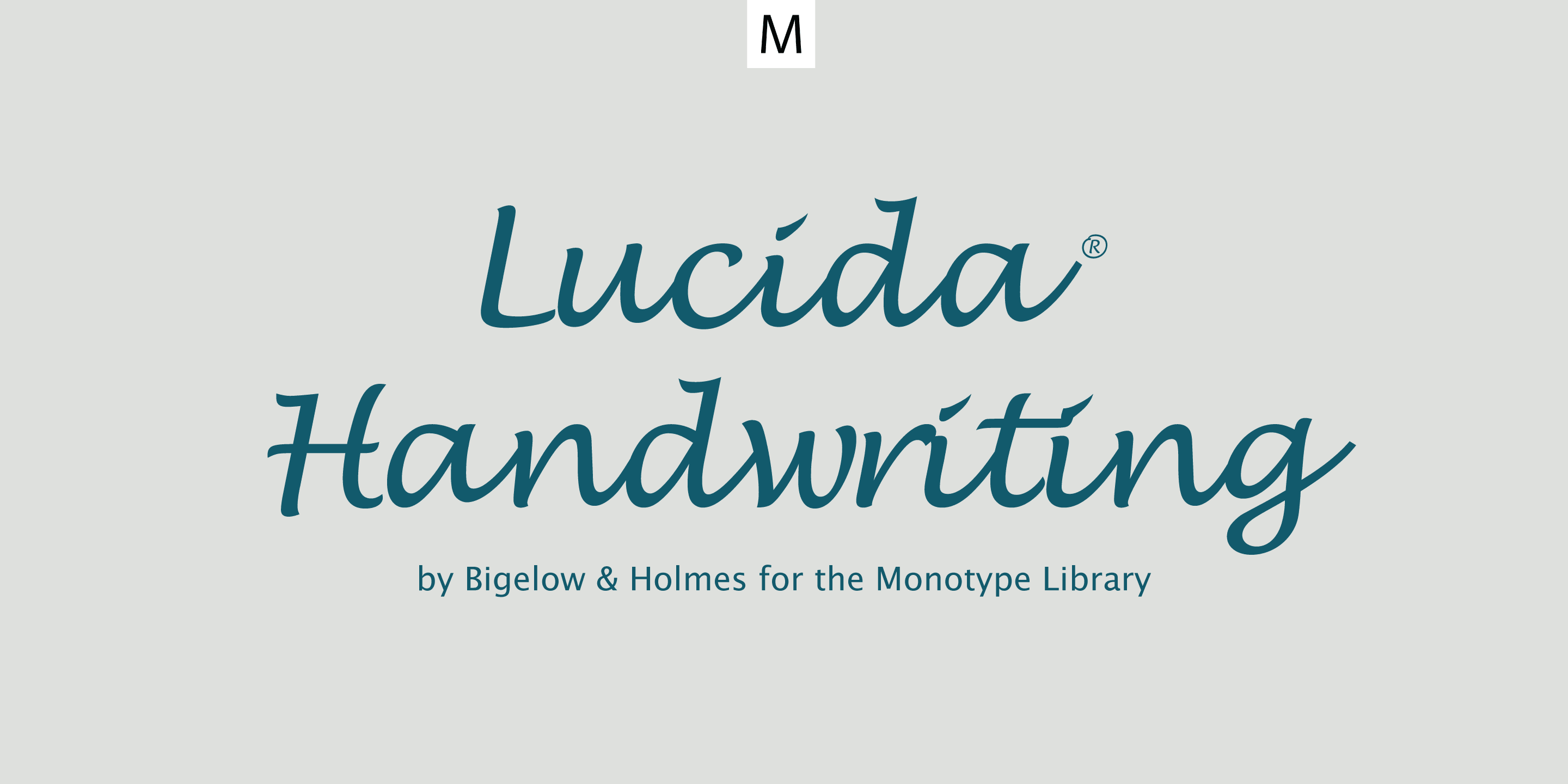
This script typeface is perfect for invitations, greeting cards, posters, branding, and social media graphics.
The Lucida Handwriting Font is exciting because its casual, connected script design brings a warm, handwritten charm with excellent readability for both print and digital projects.
Its font family includes Thin, Light, Regular, Bold, and Black, offering versatile weights for creative flexibility.
Searching for a font that adds a personal, handwritten touch to your designs? Lucida Handwriting Font Free Download is an ideal choice for designers seeking a lively, connected script typeface. Designed by Charles Bigelow and Kris Holmes in 1991 and published by Monotype, this font is part of the Lucida superfamily, known for its legibility. Updated in 2019 with four new weights, it’s perfect for creating inviting visuals in both digital and print media, from greeting cards to branding.
The Lucida Handwriting Font excels in applications requiring a friendly, informal aesthetic. It’s a top choice for invitations and greeting cards, where its flowing, connected letters evoke warmth and sincerity. Designers use it for posters, menus, or signage, adding an antique, handwritten flair. Branding projects, such as logos for small businesses or artisanal products, benefit from its relaxed personality. Social media creators leverage it for Instagram posts, TikTok overlays, or YouTube thumbnails, enhancing engagement with its approachable style. Its versatility also suits memos, labels, and personal notes.
What makes the Lucida Handwriting Font Free Download so captivating is its balance of informality and readability. With a large x-height and open apertures, it ensures legibility even at small sizes on screens or printers. OpenType features, including ligatures and alternates, offer creative flexibility in tools like Adobe Illustrator or InDesign. Supporting 38 Latin-based languages, it’s ideal for multilingual projects. The font’s hand-drawn symbols, like arrows and smiley faces, maintain its handwritten feel, making it unique. For web use, it supports @font-face embedding.
The Lucida Handwriting Font family includes Thin, Light, Regular, Bold, and Black, providing a range of weights for subtle or bold designs. Regular is ideal for body text, while Bold or Black suits headlines or logos.